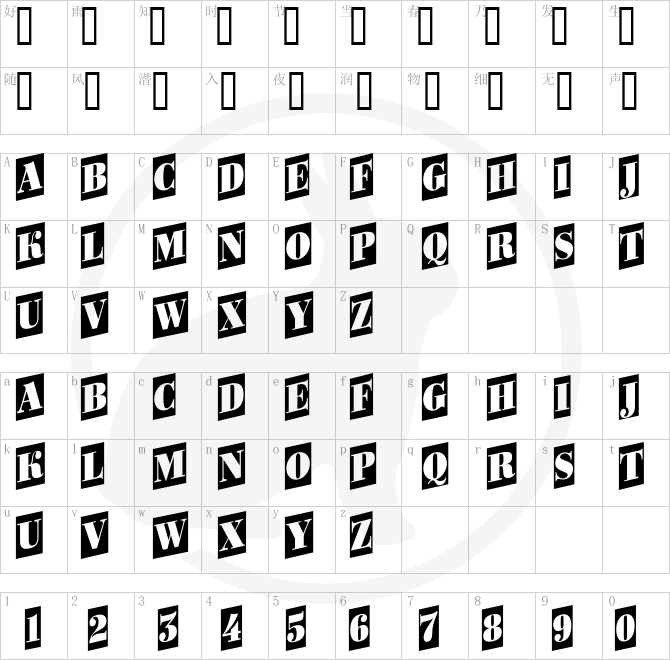
a_BodoniOrtoNrTtlCmUp.ttf is a very beautiful artistic font, a_BodoniOrtoNrTtlCmUp.ttf is widely used in the design and printing of various books and pictures,a_BodoniOrtoNrTtlCmUp.ttf has a strong visual impact,a_BodoniOrtoNrTtlCmUp.ttf is a commonly used font in newspapers, magazines and books, and is used in posters, e-commerce Poster design, store design, logo design, font design and other fields.a_BodoniOrtoNrTtlCmUp.